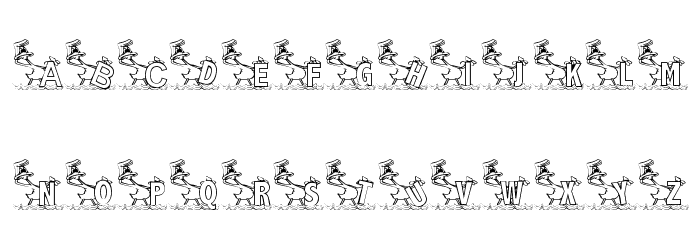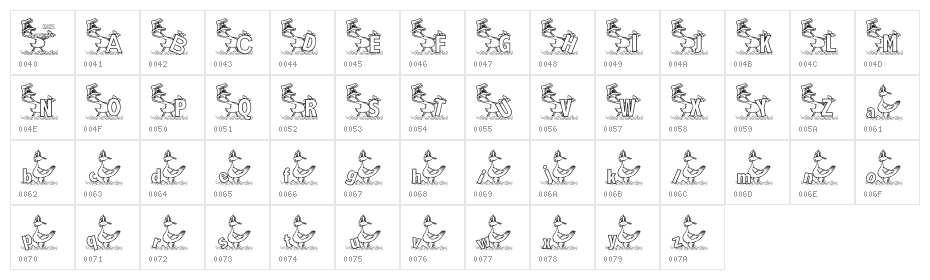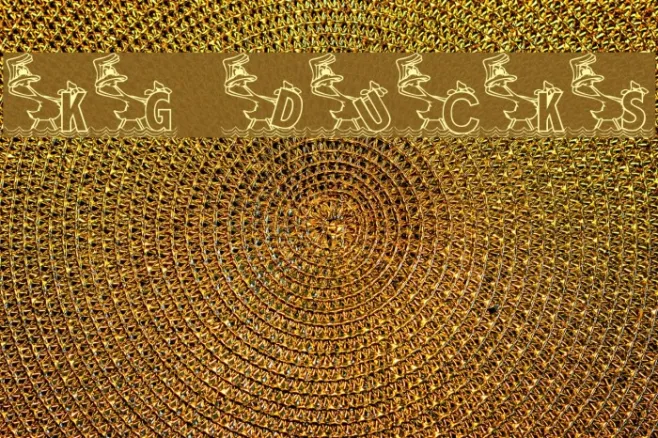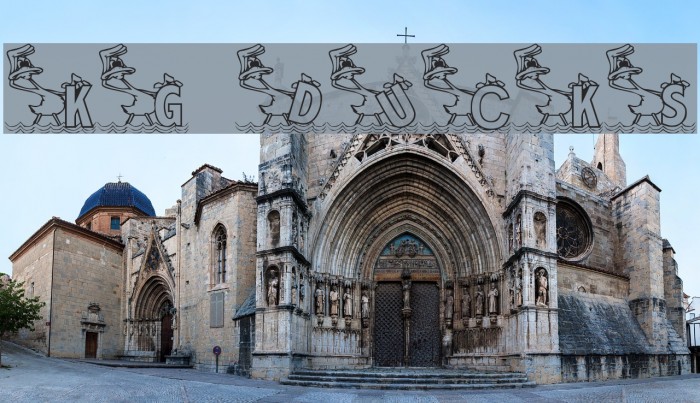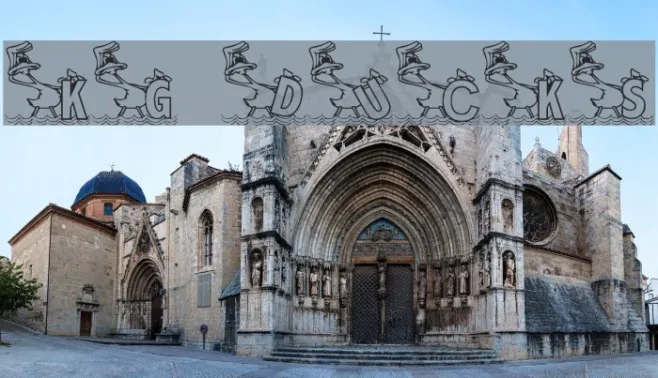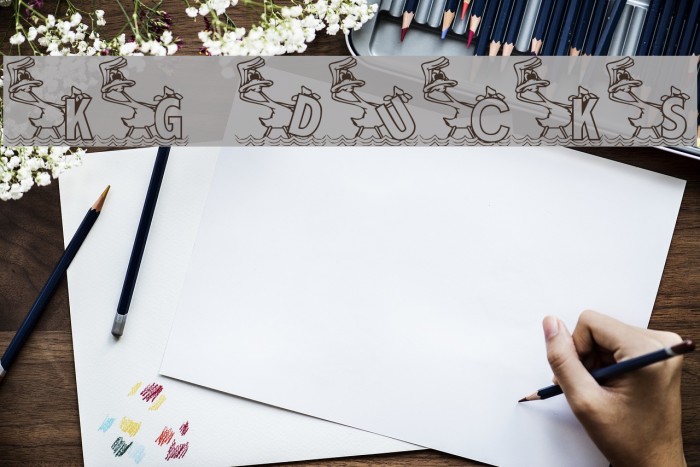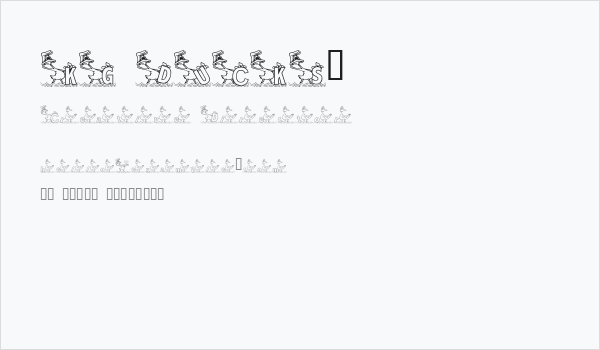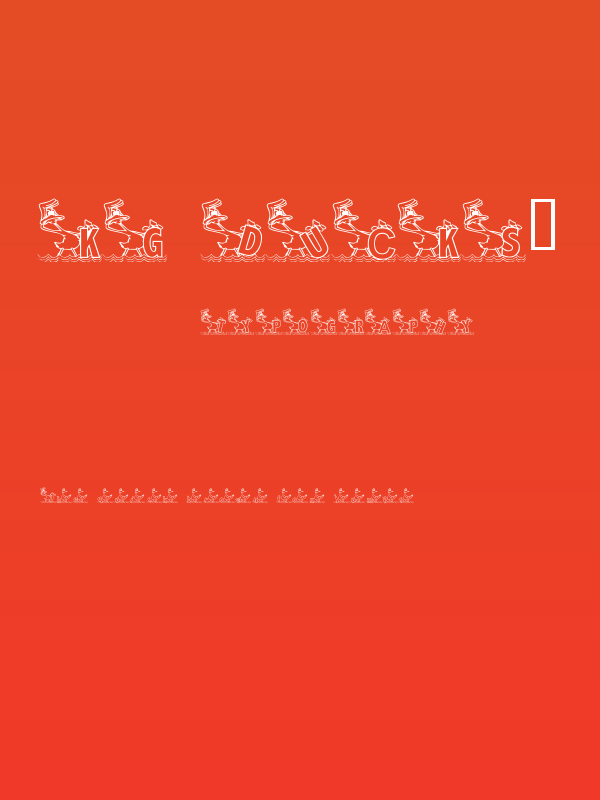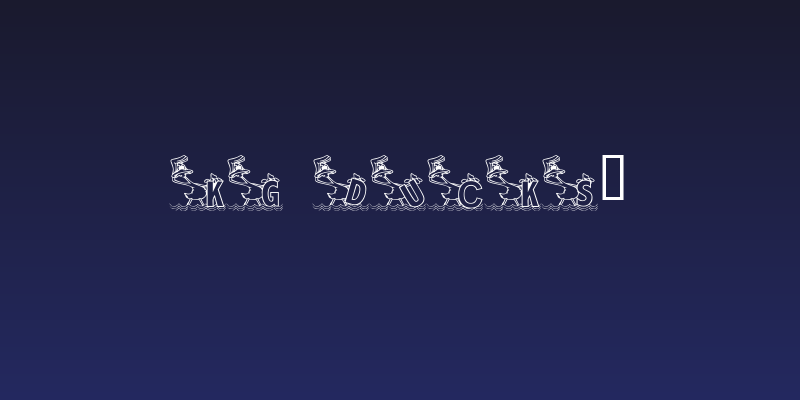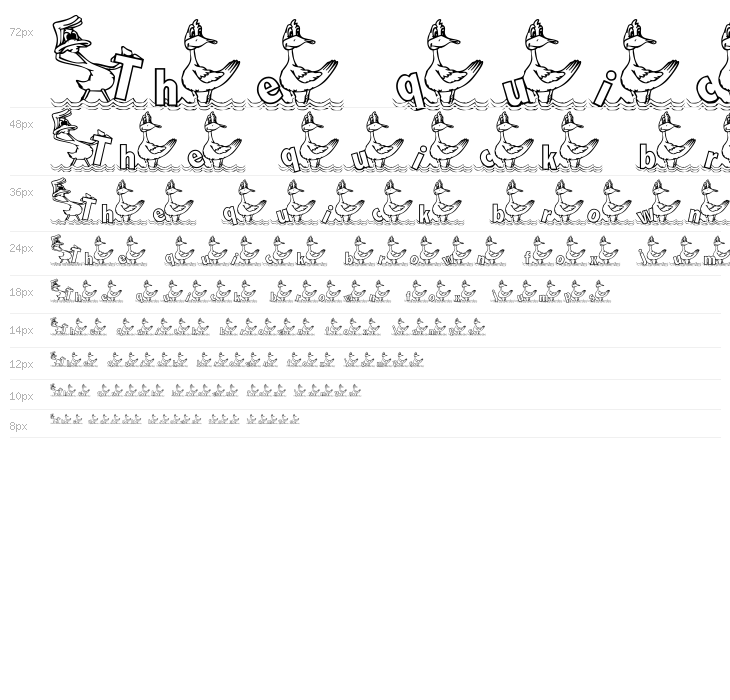
KG DUCKS2 Font
KG DUCKS2 Description
This whimsical font features playful ducks integrated into each letter, creating a unique and entertaining design. The characters are outlined with a cartoonish style, where each letter is accompanied by a duck in various poses, adding a lively and humorous touch. The font maintains a consistent line weight, giving it a balanced appearance despite its decorative nature. The ducks are detailed with expressive features, enhancing the overall charm and appeal. This font is perfect for projects that require a fun and lighthearted aesthetic, such as children's books, playful branding, or themed party invitations.
| Overall Style | Whimsical |
| Proposed Projects | Ideal for children's books, playful branding, themed invitations, and educational materials. |